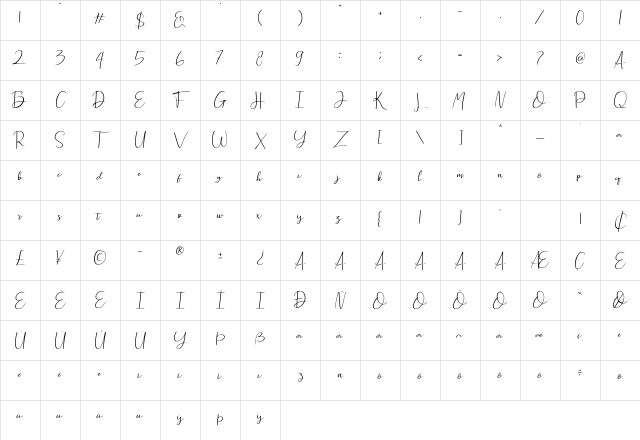
Mystic Darling Regular Free Font
Mystic Darling Regular
Designer: Stringlabs. 2020
Design Context for Mystic Darling
Mystic Darling is a composed and adaptable typeface that performs quietly and consistently across a wide range of design contexts.